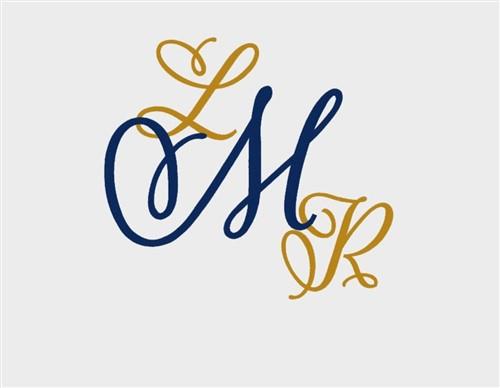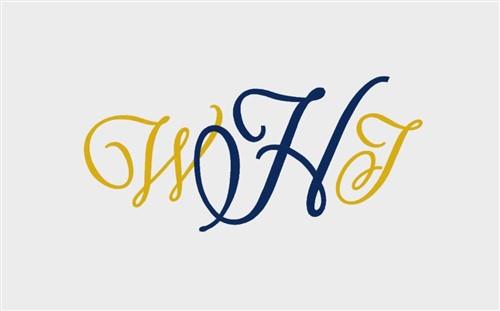
Artsy Knots is happy to present Vine monogram machine embroidery font which has This sophisticated monogram machine embroidery font showcases intertwined letters 'A', 'B', and 'C', perfect for personalizing items like blankets and gifts. Available in PES, DST, and 6 additional formats. included. If you would like to view more embroidery fonts and alphabets please search our embroidery fonts page.